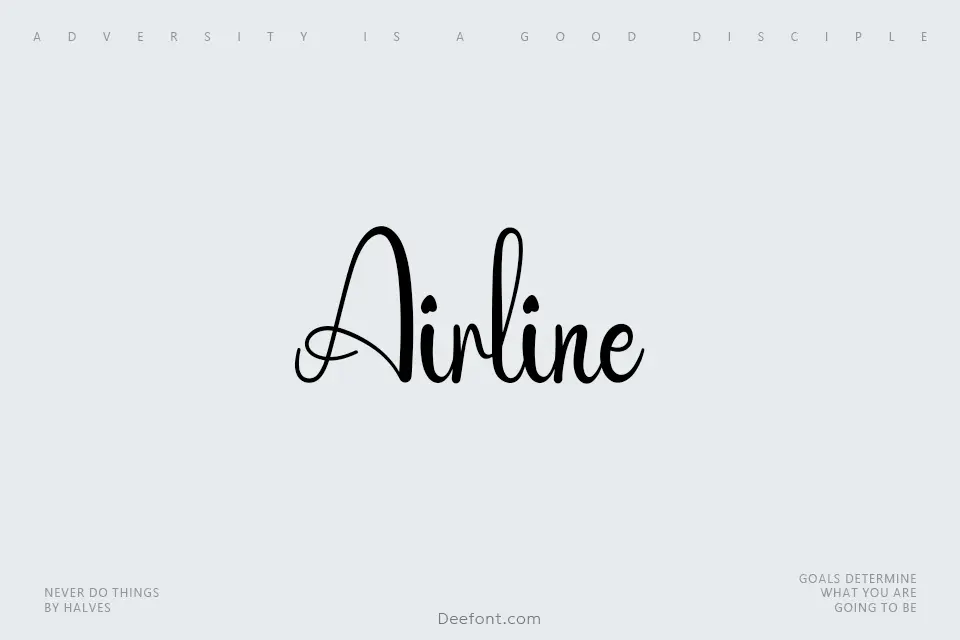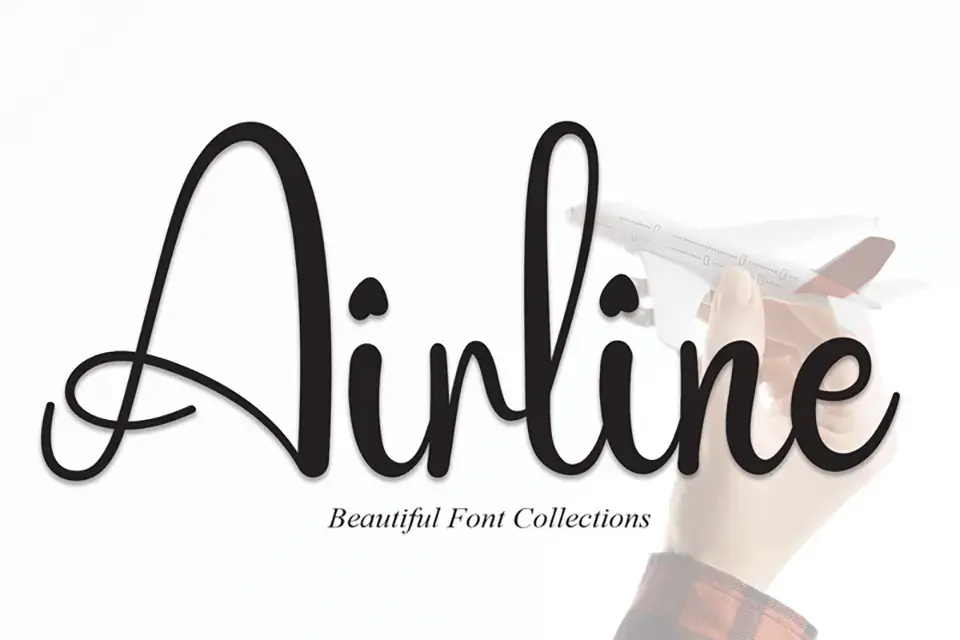
Airline Font
Airline is a captivating handwritten display font featuring whimsical, flowing strokes that evoke effortless elegance and playful charm. With its sweet and friendly character design, the font combines smooth curves and expressive letterforms that work beautifully for wedding invitations, greeting cards, festive celebrations, and creative poster designs. The 135-character glyph set provides versatile coverage for decorative display work, making it ideal for designers seeking authentic hand-lettered aesthetics for both digital and print applications.